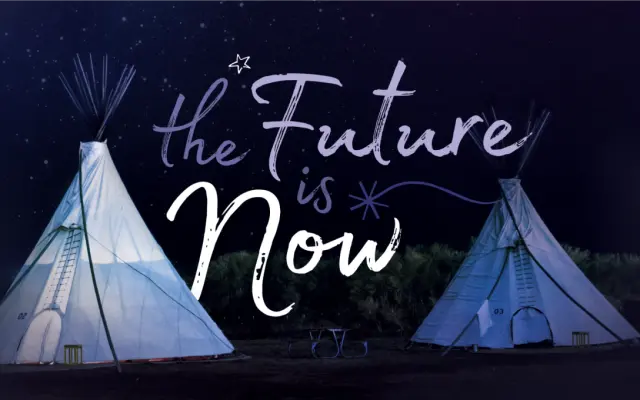
Madelyn
Fontfabric · Svetoslav Simov, Jacklina Jekova · 2016
A casual brush script with decorative doodle and fill variants, designed for branding, packaging and expressive editorial use.
Designed by Svetoslav Simov and Jacklina Jekova and released in 2016, Madelyn draws on natural brush calligraphy to produce a handwritten script with realistic ligatures and stylistic alternates. The family extends beyond a plain script with Fill and Doodles variants, giving designers ready-made decorative options for greeting cards, product labels and social media. OpenType features and coverage of Extended Latin and Cyrillic scripts add practical versatility to what is otherwise a straightforwardly expressive typeface.
A handwritten brush script with natural calligraphic flow, decorative doodle variants and fill styles, placing it firmly in the casual brush script category.